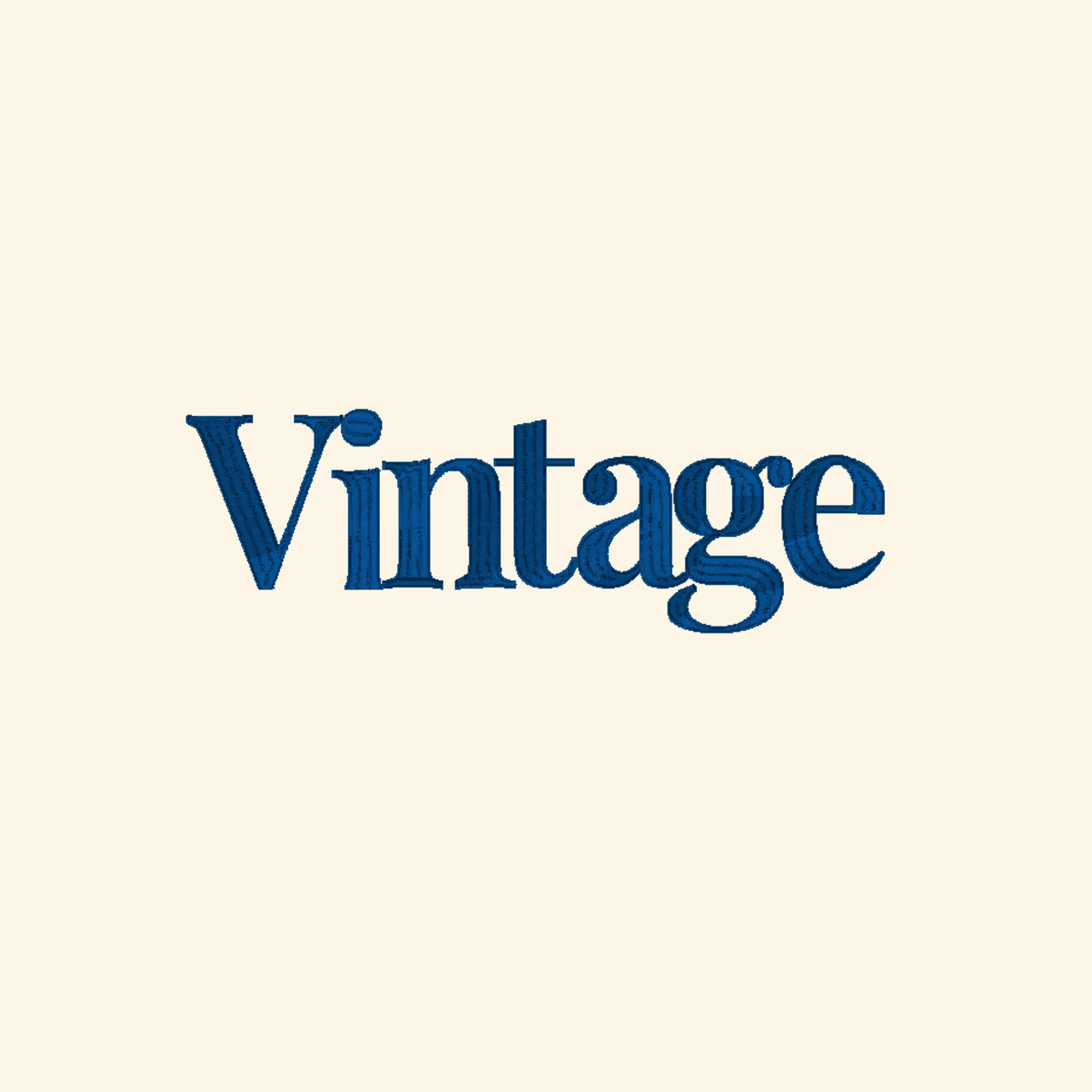
Vintage embroidery font, Serif font for machine embroidery, 7 Formats + 7 Sizes
🪡Vintage - premium embroidery font.
Take your projects to the next dimension with Vintage - professional machine embroidery alphabet! Specially digitized for high-impact results, this font is the perfect choice for creating any item that requires embroidery.